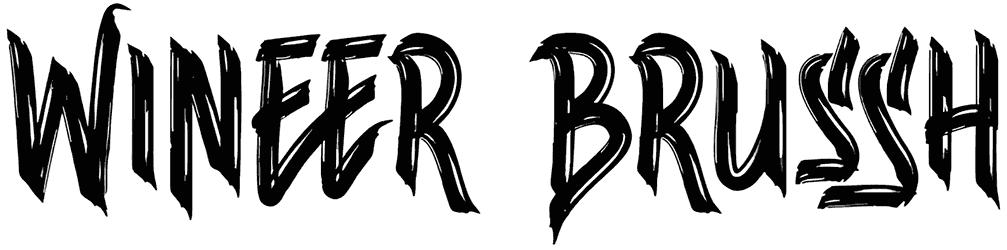
Wineer Brussh Font
Introducing Wineer Brussh, a horror brush font that has a bold, dry hand-drawn display. It is creatively designed to inject a dangerous, wild touch into your project and make it stand out from the rest.
This horror font comes with two types of uppercase letters but doesn’t support lowercase, numerals, or some punctuation. It is a suitable option for scary movie posters/titles, book covers, T-shirt prints, social media posts, and other concepts related to Halloween.